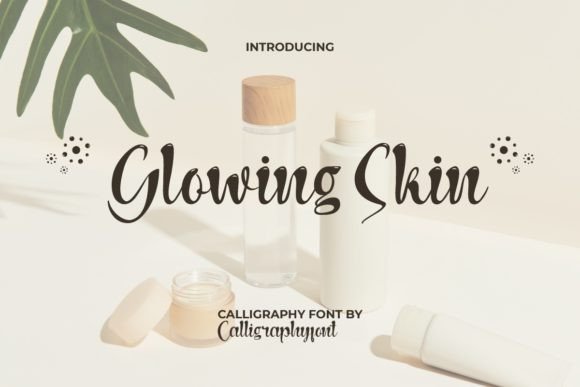
Introducing Glowing Skin - an exquisite script font that ignites a symphony of elegance and artistry. Its graceful strokes and captivating flourishes bestow an aura of confidence and creativity onto your projects. Whether you're a fashionista, beauty enthusiast, or lifestyle artist, Glowing Skin is your perfect companion.
Step into a world of sophistication and allure as you discover the enchanting Glowing Skin font. Its smooth curves and flowing letterforms dance harmoniously together, like a gentle breeze whispering through the petals of a blooming rose. With Glowing Skin, your designs will exude a timeless charm and undeniable grace.
Glowing Skin is a versatile font, ready to elevate your wedding programs to new heights of beauty. Its elegant demeanor lends itself perfectly to capturing the essence of love and commitment. Each letter, meticulously crafted, carries the weight of emotions and promises, making your wedding program a cherished keepsake.
Beyond weddings, Glowing Skin shines in countless other projects. Its versatility knows no bounds, from fashion magazines and beauty blogs to lifestyle campaigns and social media posts. Wherever creativity blooms, Glowing Skin flourishes, adding a touch of sophistication and artistry that sets your designs apart.
Unleash your inner artist and let Glowing Skin ignite the passion within your creative soul. Its uninhibited spirit encourages you to explore new horizons, to push the boundaries of expression. Glowing Skin is not just a font; it's an invitation to embark on a journey of artistic exploration.